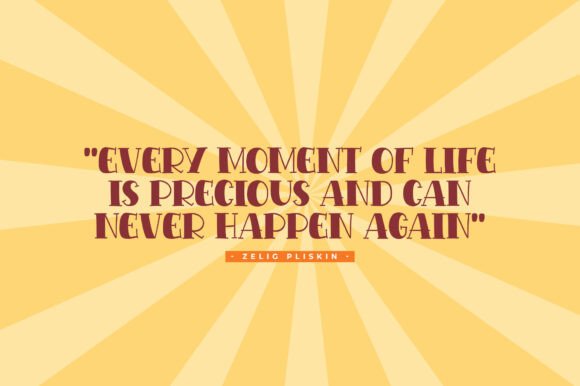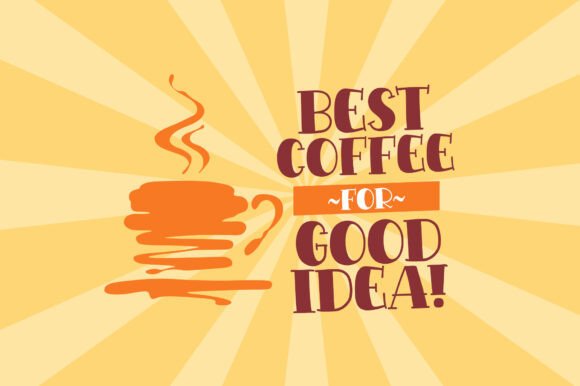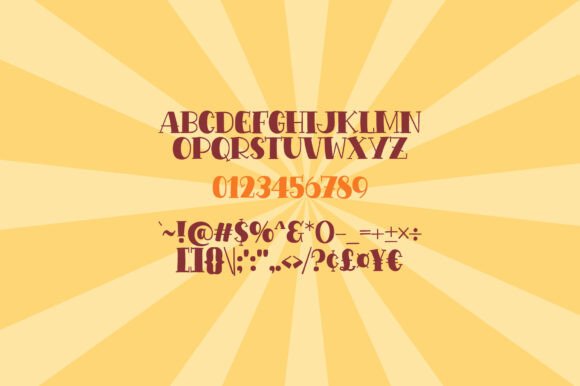
Introducing Extra Snack Font: The Perfect Handwritten Font for Your Creative Projects
Are you a designer, crafty person, or DIY enthusiast looking for a unique and modern font to elevate your creative projects? Look no further than Extra Snack Font, a beautiful and cute handwritten font that’s perfect for a wide range of applications. In this article, we’ll explore the features and benefits of Extra Snack Font, and show you how it can help take your designs to the next level.
What is Extra Snack Font?
Extra Snack Font is a modern and cute handwritten font that’s designed to add a personal touch to your creative projects. Its unique and playful style makes it perfect for a variety of applications, including posters, logos, magazines, book covers, banners, and many more. With its clean and elegant lines, Extra Snack Font is sure to capture the attention of your audience and leave a lasting impression.
Key Features of Extra Snack Font
- Handwritten style: Extra Snack Font has a beautiful handwritten style that’s perfect for adding a personal touch to your designs.
- Modern and cute: The font’s modern and cute style makes it perfect for a wide range of creative projects, from posters and logos to book covers and banners.
- Highly versatile: Extra Snack Font can easily be matched to an incredibly large set of projects, making it a great addition to your font library.
Benefits of Using Extra Snack Font
So why choose Extra Snack Font for your creative projects? Here are just a few benefits of using this amazing font:
- Adds a personal touch: Extra Snack Font’s handwritten style adds a personal touch to your designs, making them stand out from the crowd.
- Increases creativity: The font’s unique and playful style can help inspire your creativity and take your designs to the next level.
- Perfect for branding: Extra Snack Font is perfect for creating logos, business cards, and other branding materials that require a modern and professional look.
Examples of Extra Snack Font in Use
Extra Snack Font is a versatile font that can be used in a wide range of creative projects. Here are a few examples:
- Posters and flyers: Use Extra Snack Font to create eye-catching posters and flyers for events, promotions, or products.
- Logos and branding: Create a unique and memorable logo for your business or brand using Extra Snack Font.
- Magazines and books: Use Extra Snack Font to add a personal touch to your magazine or book covers, or to create engaging headings and titles.
- Banners and signs: Create eye-catching banners and signs for events, sales, or promotions using Extra Snack Font.
In conclusion, Extra Snack Font is a modern and cute handwritten font that’s perfect for a wide range of creative projects. Its unique and playful style makes it a great addition to any font library, and its ease of use makes it perfect for designers and crafters of all skill levels. Whether you’re looking to create posters, logos, magazines, book covers, or banners, Extra Snack Font is the perfect choice. So why wait? Download Extra Snack Font today and start creating amazing designs!